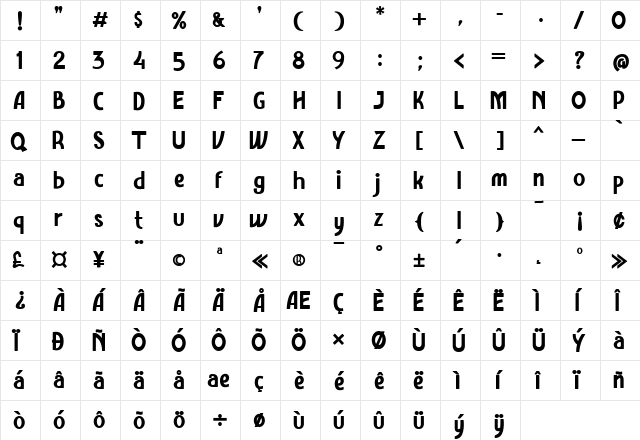
Amro Sans Bold
| Foundry | Andi Winarno - INKsTYPIA |
| Designer | Andi Winarno |
Design Context for Amro Sans Typeface
Amro Sans takes a measured approach to typography — its balanced proportions and neutral character make it a reliable workhorse for both digital and print work. The heavy weight commands attention and anchors typographic hierarchies.